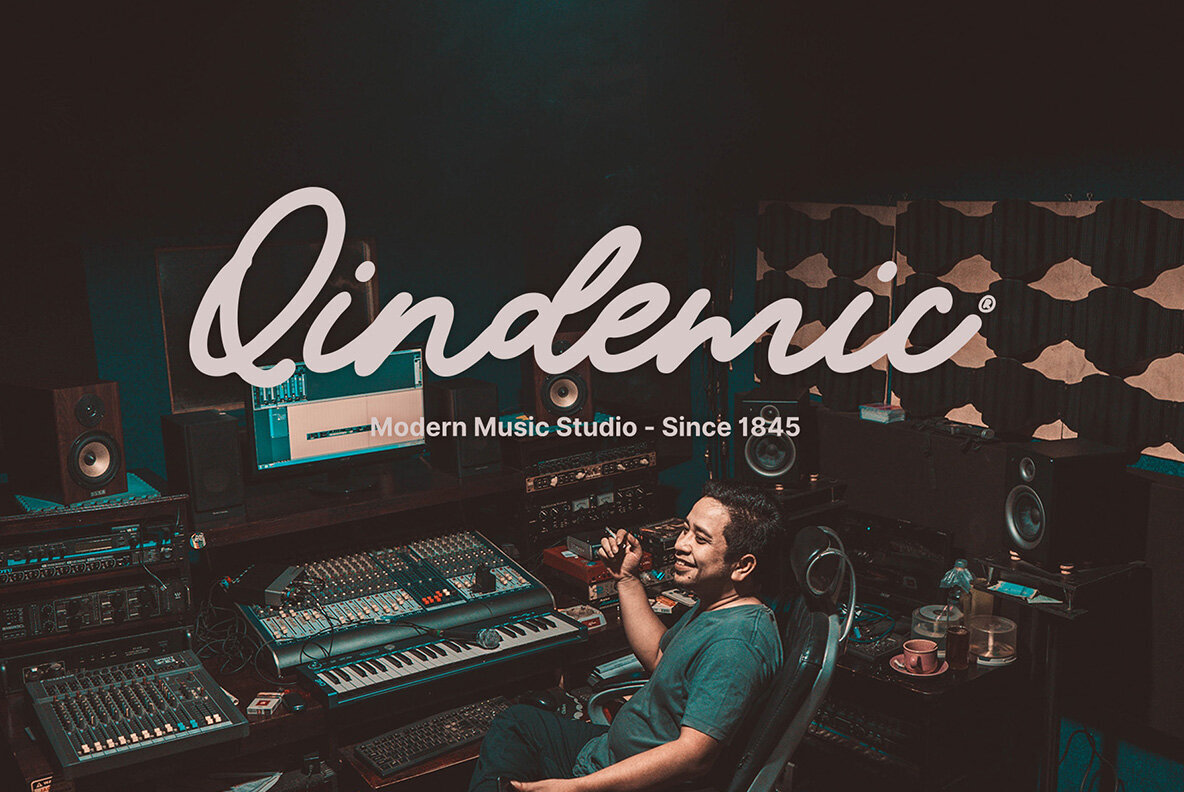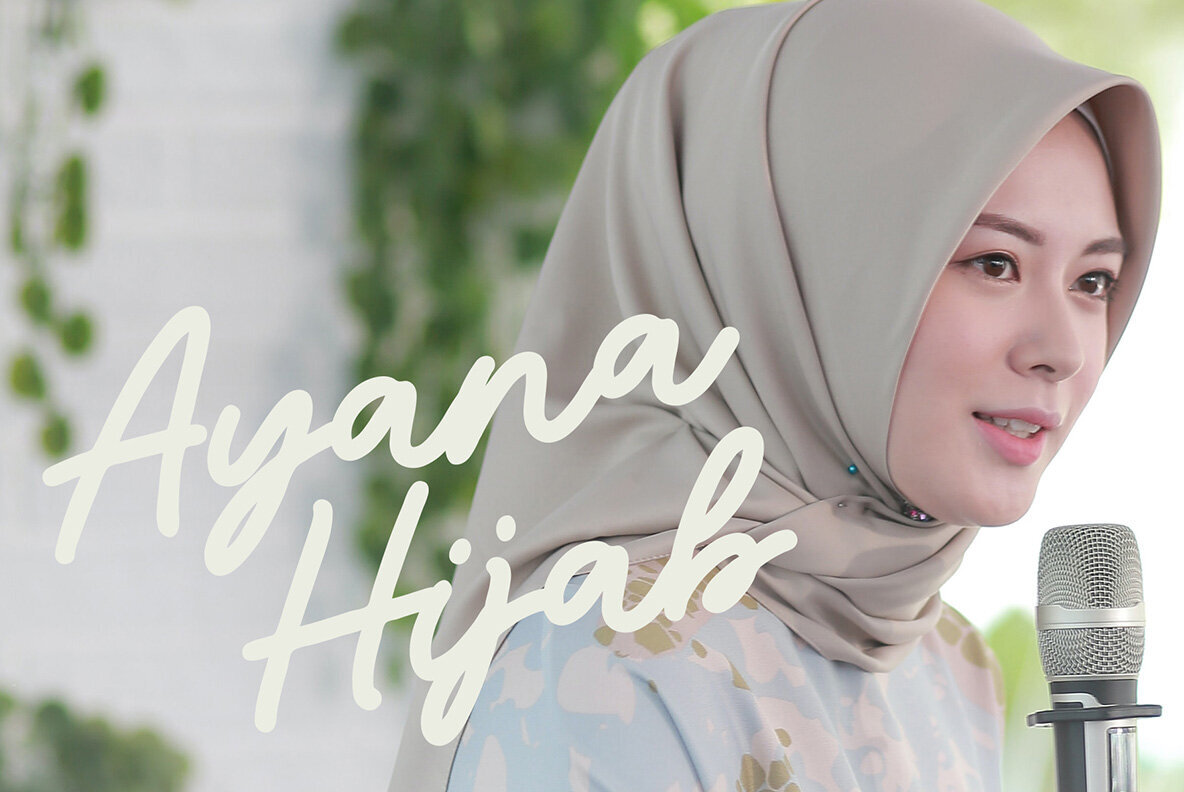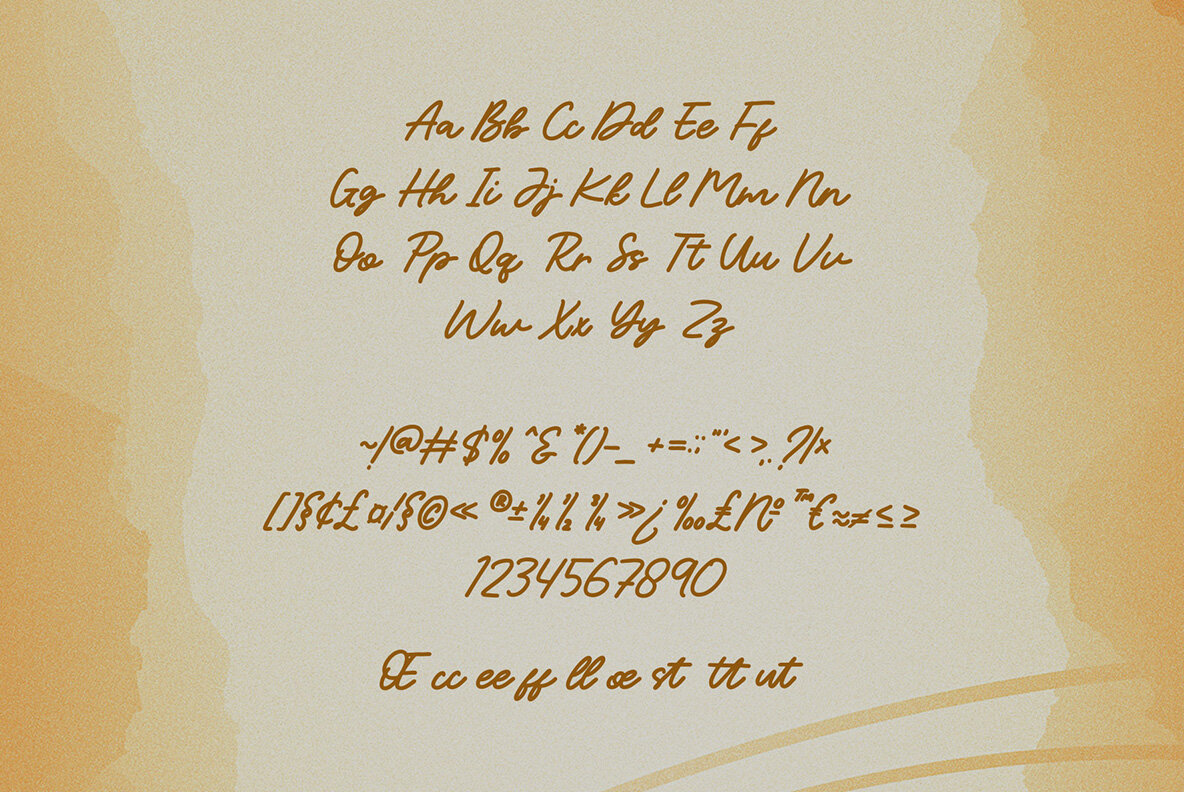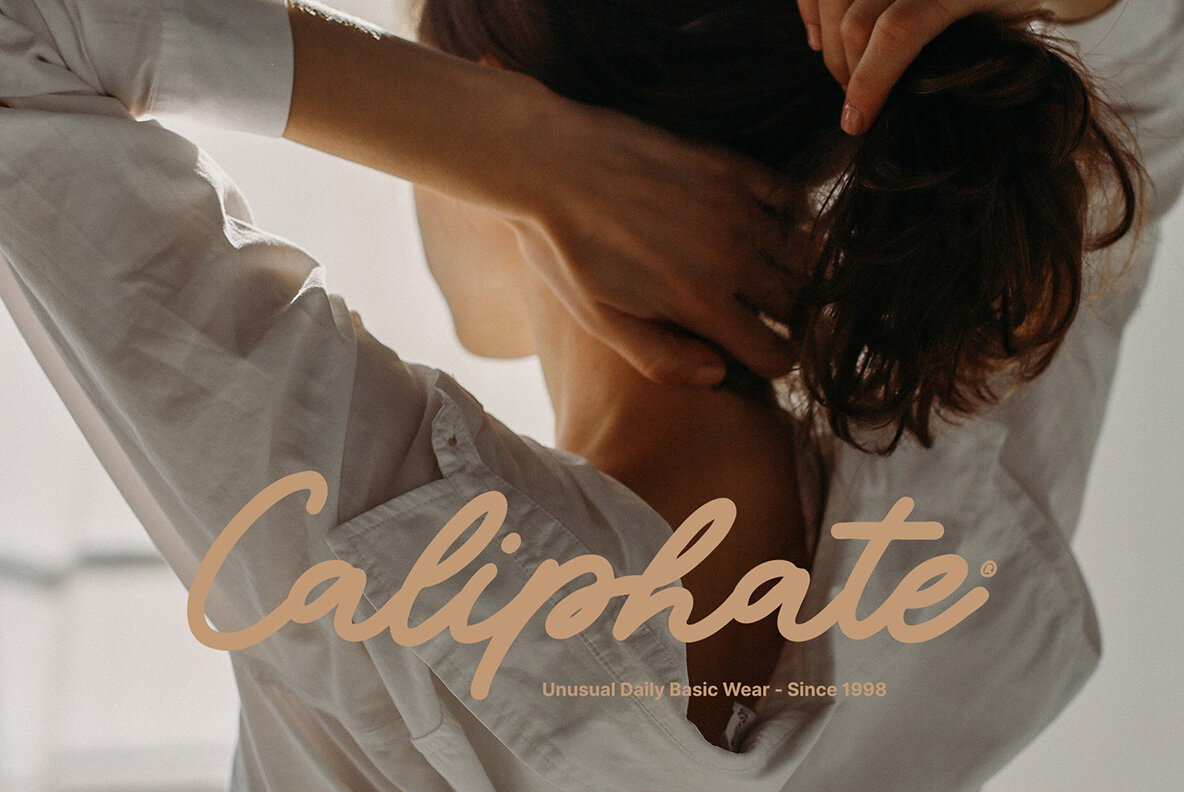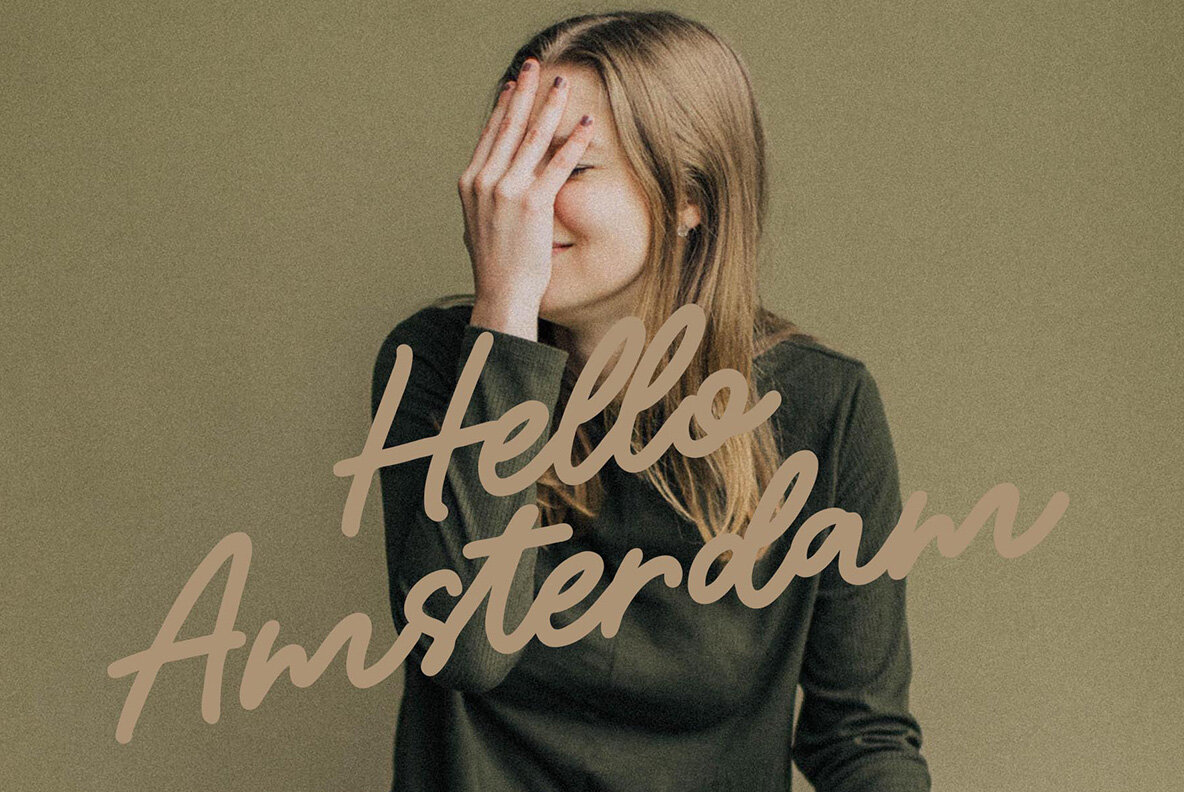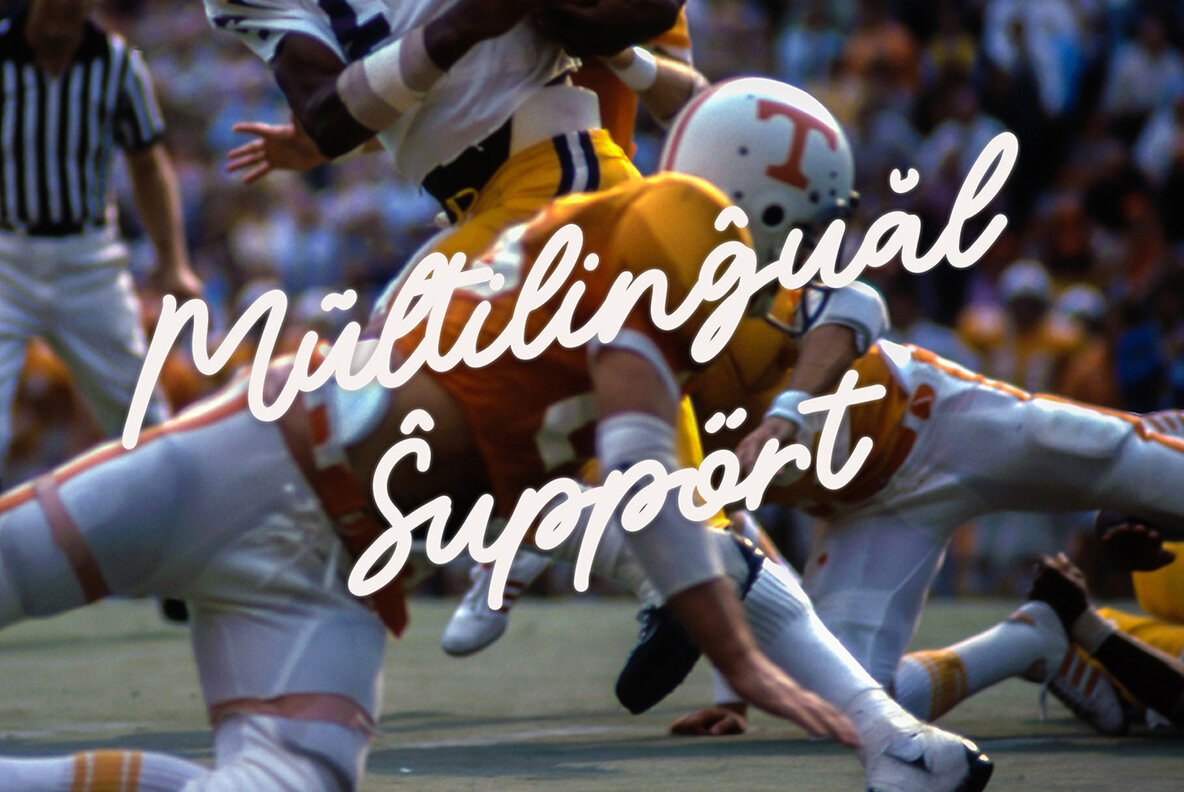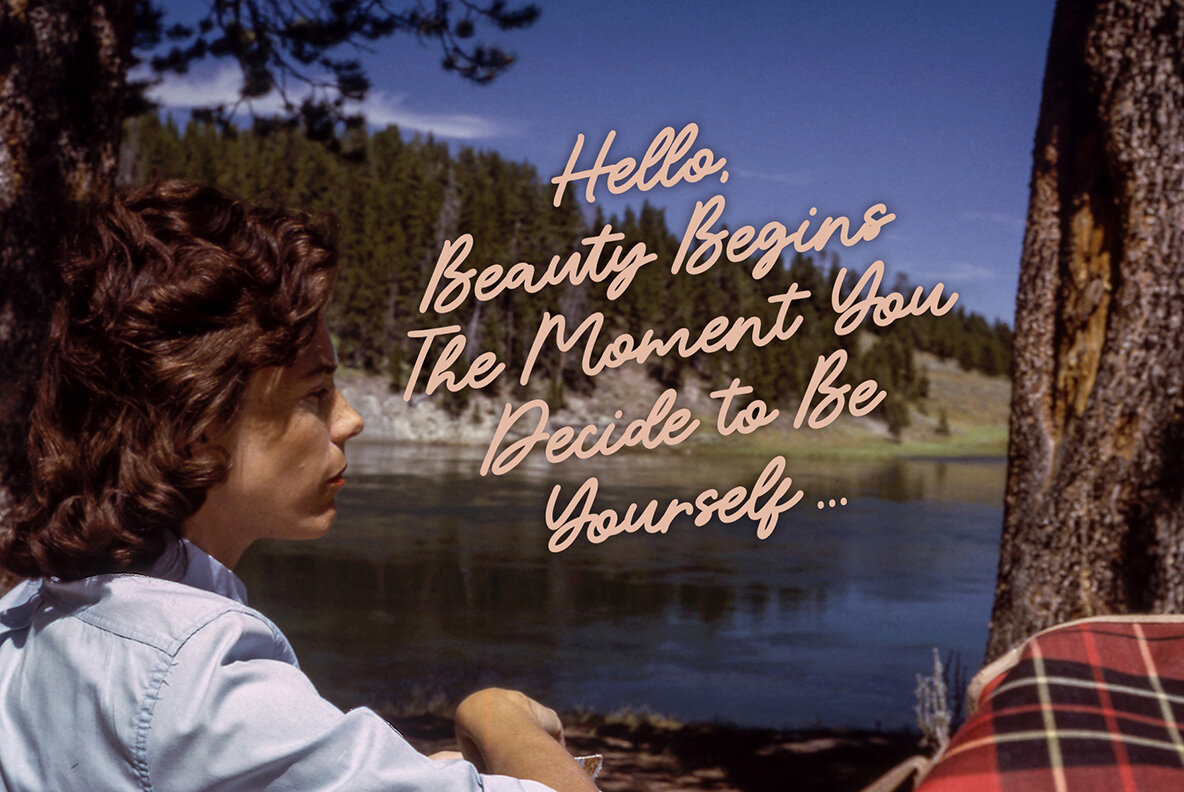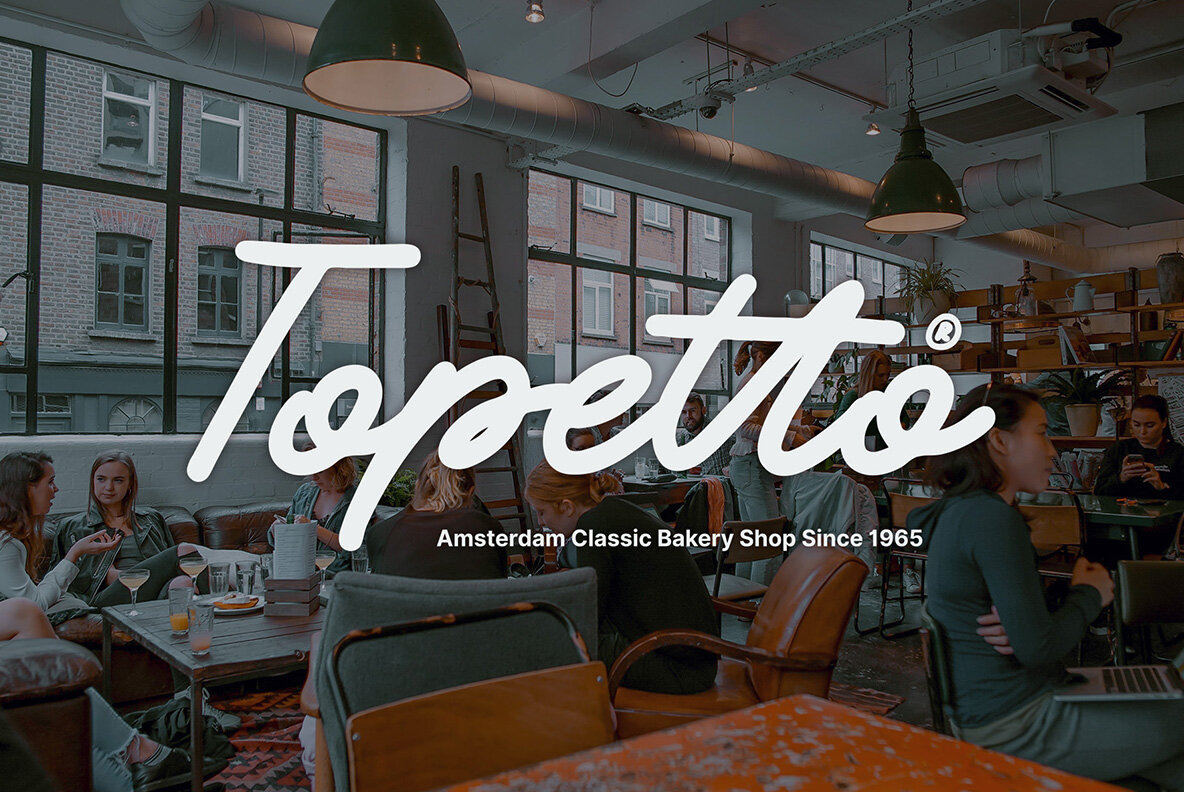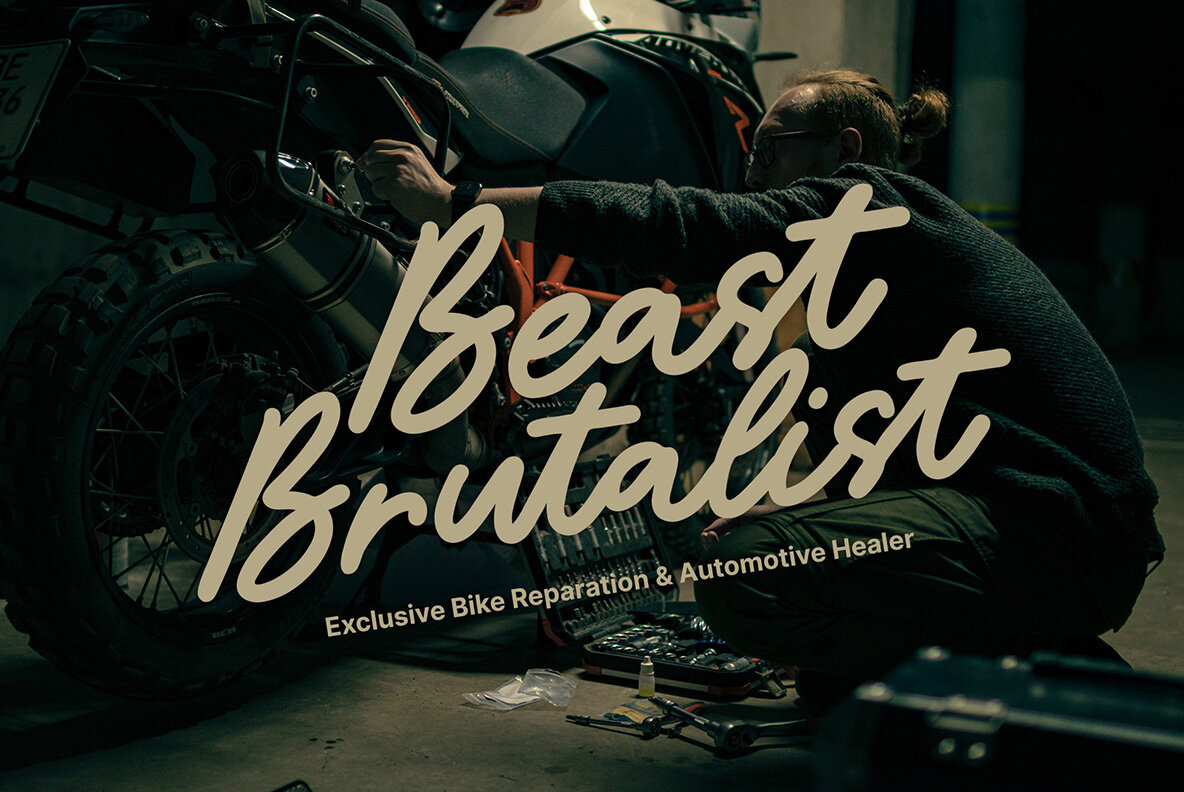
Ncl Bestopia Font
NCL Bestopia
Ncl Bestopia is a simple and basic monoline script font. It's fun, unique, stylish and modern-classic display font. Masterfully designed to become a true favorite, this font has the potential to bring each of your creative ideas to the highest level! It was purposely crafted to be used in large point sizes, although it doesn’t lose its magic in small point sizes. It is perfect for headline, billboard, magazines, website, titles, poster, branding, t-shirt design, and logos. No matter the topic, this font will be an incredible asset to your fonts’ library, as it has the potential to elevate any creation. With this beautiful font, absolutely you can make your project stand out from the rest. See the previews above to get some inspiration on how to use them. FEATURES